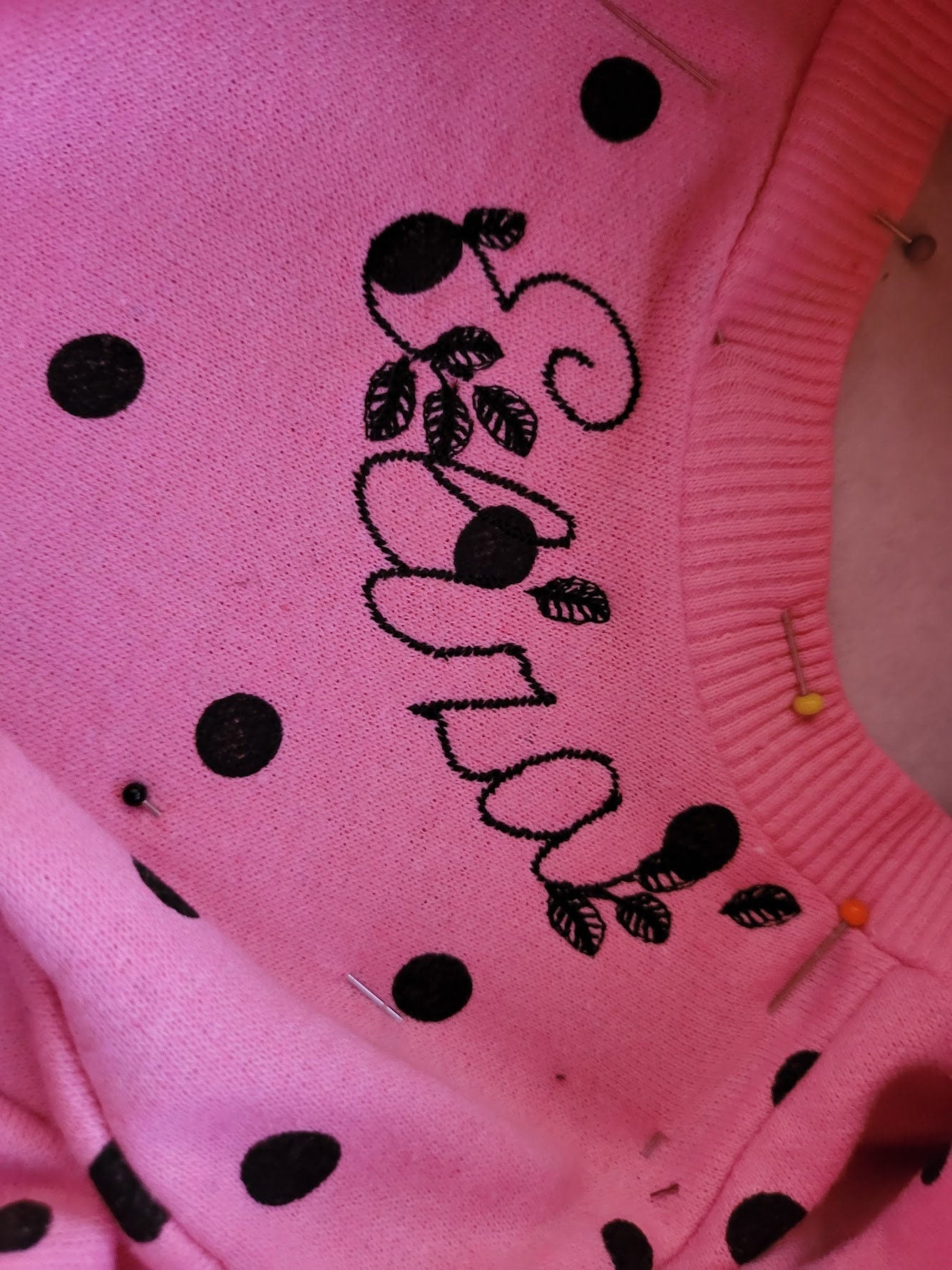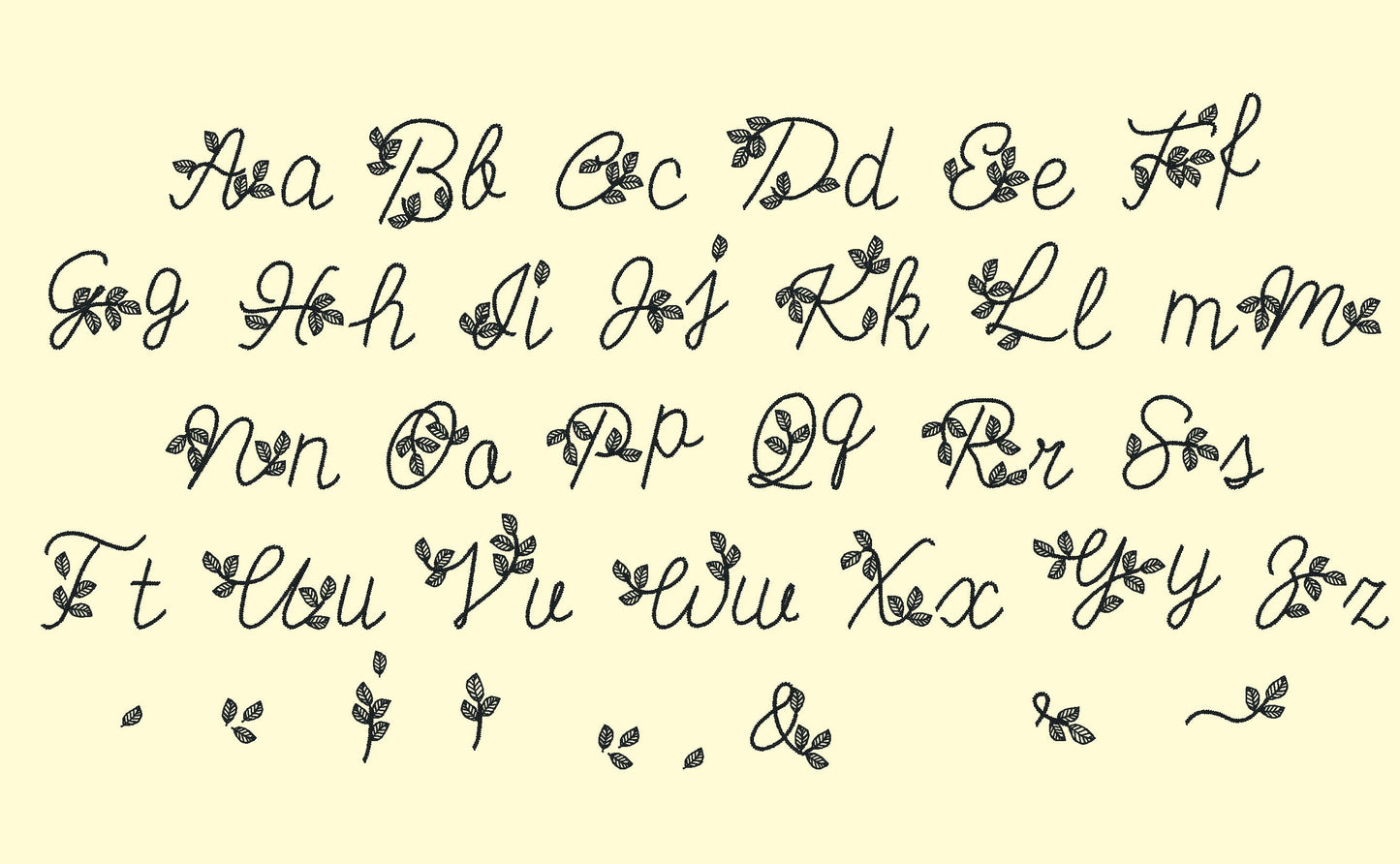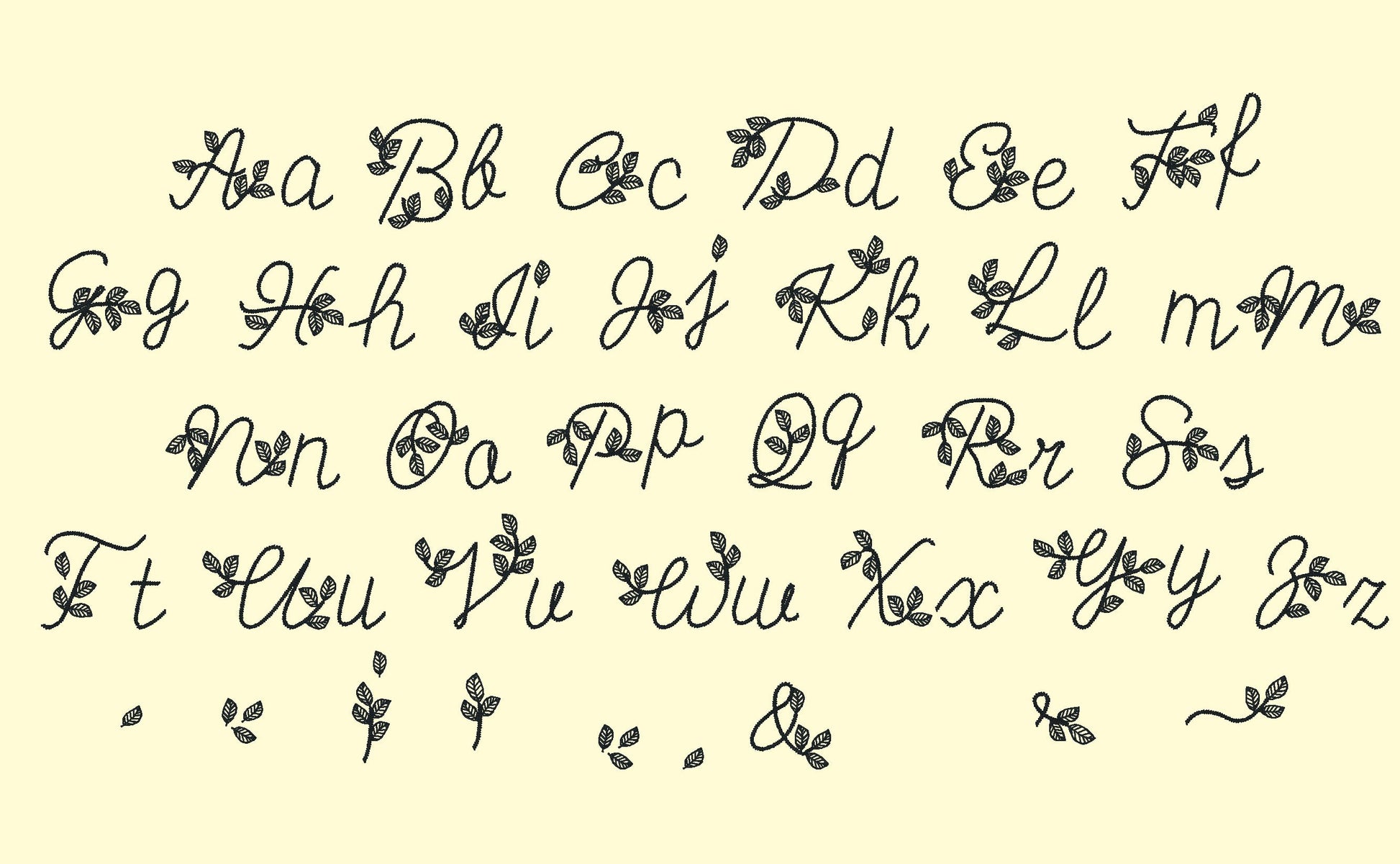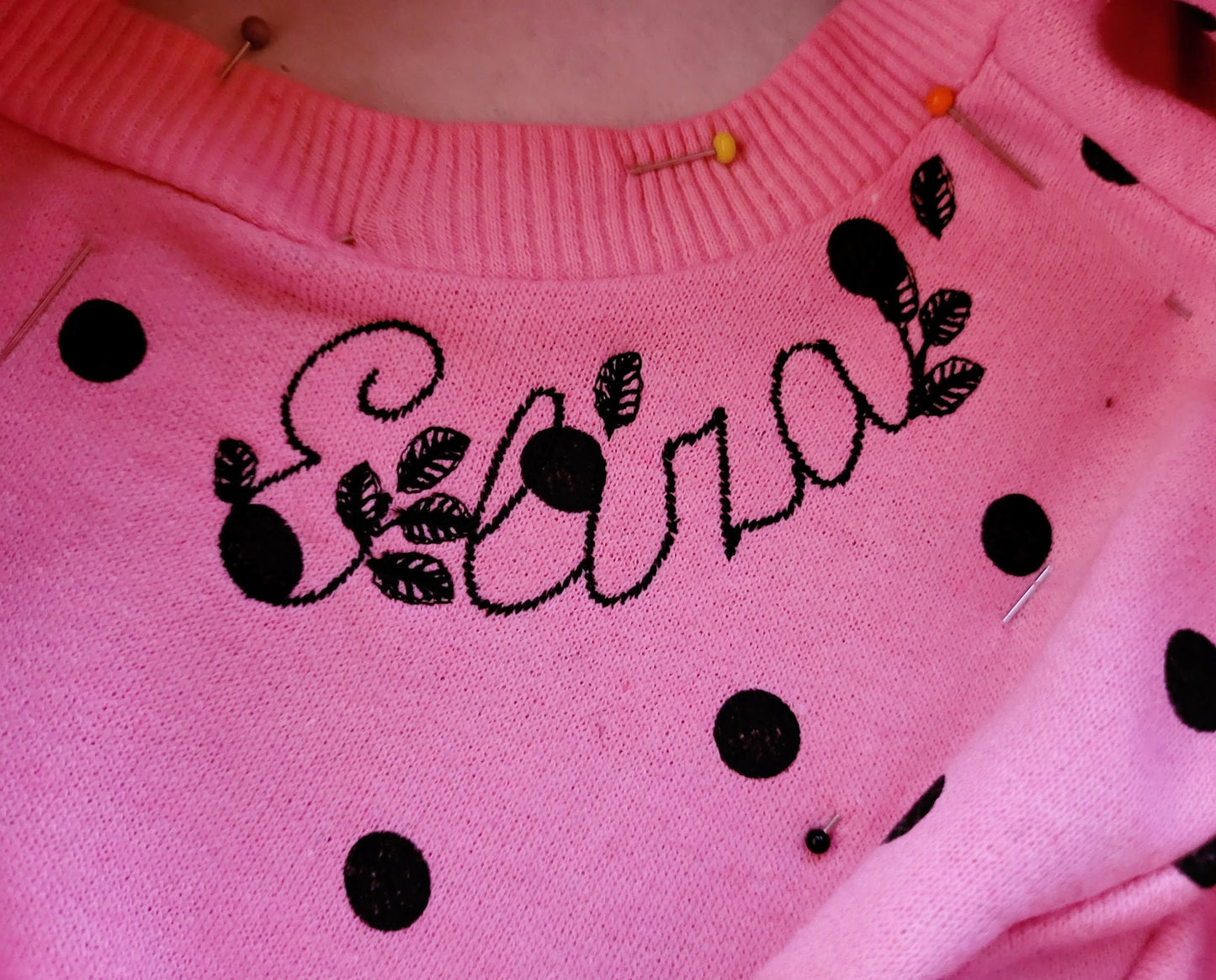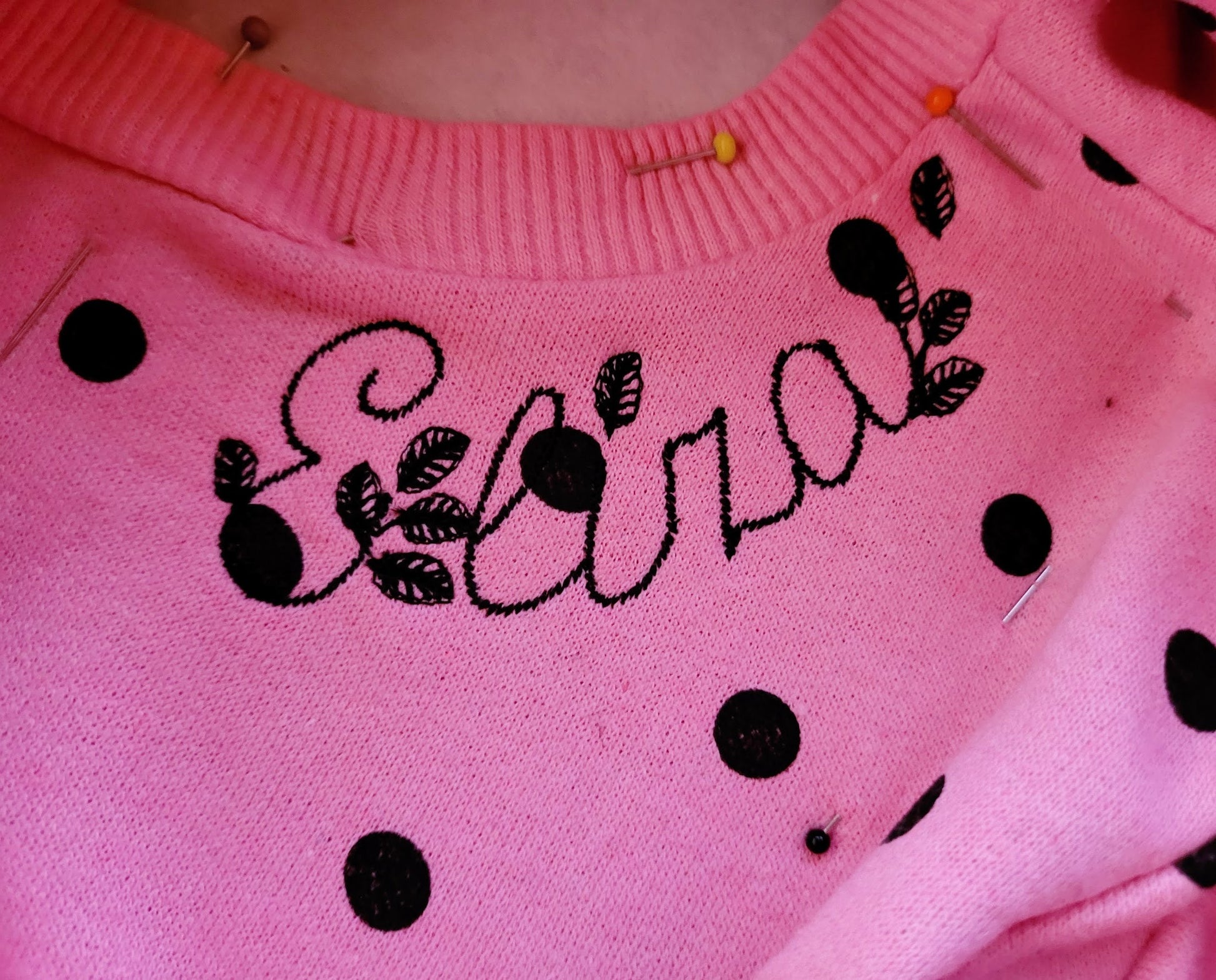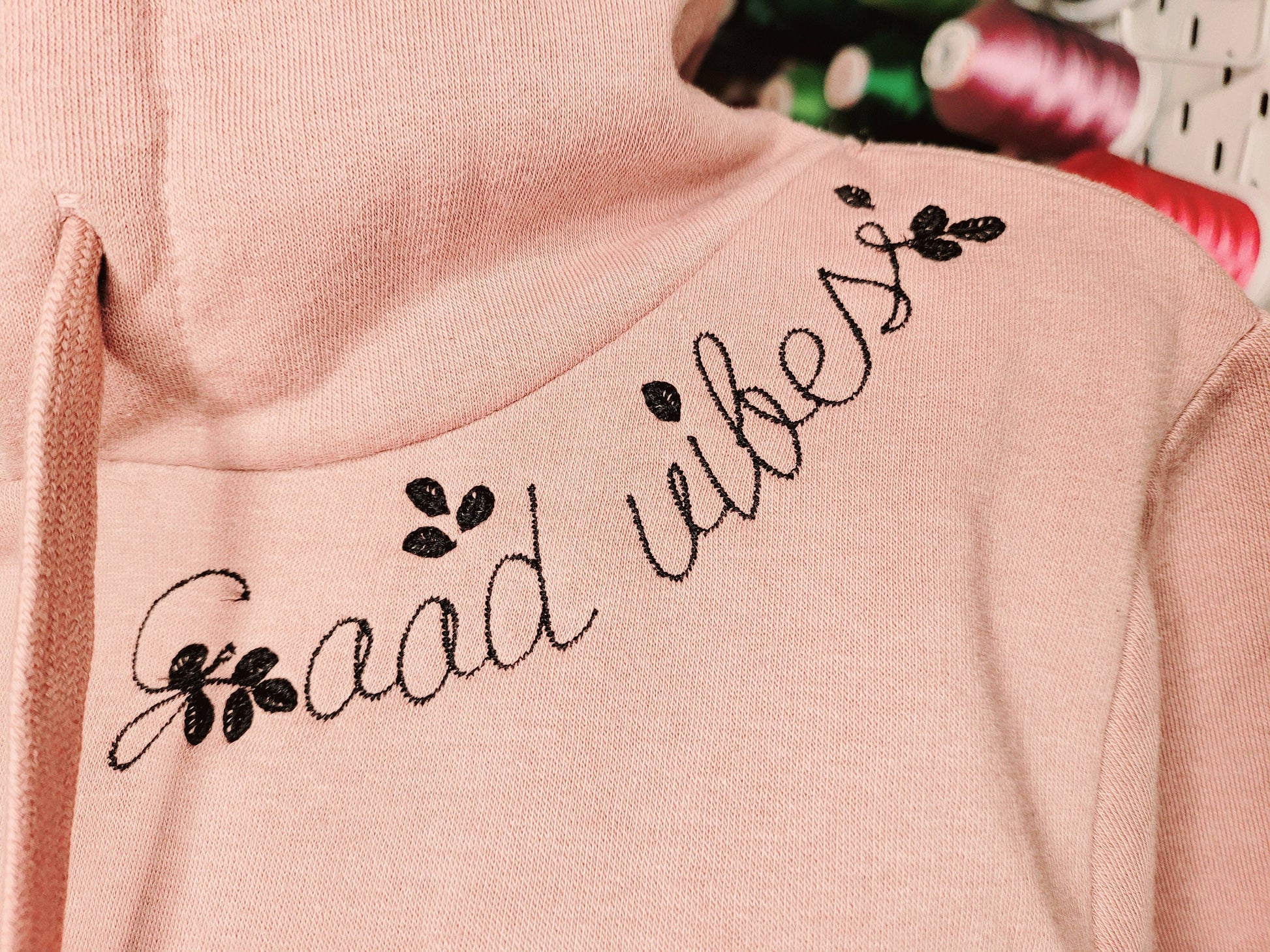
Leaf Handwritten Script Font
Or click to open the linkA handwritten script font with little leaves and leafy tails to finish a name. Pretty for girls' names, necklines and floral monograms.
The letters come in six sizes: 1.2, 1.5, 1.7, 2, 2.3 and 2.6 inches. Add single leaves, leaf clusters and curly leaf tails to the start or end of a word. Includes uppercase and lowercase letters A to Z and an ampersand.
- Leaf handwritten script font with leaf and tail add-ons
- Uppercase and lowercase letters, ampersand
- 6 sizes, 1.2 to 2.6 in